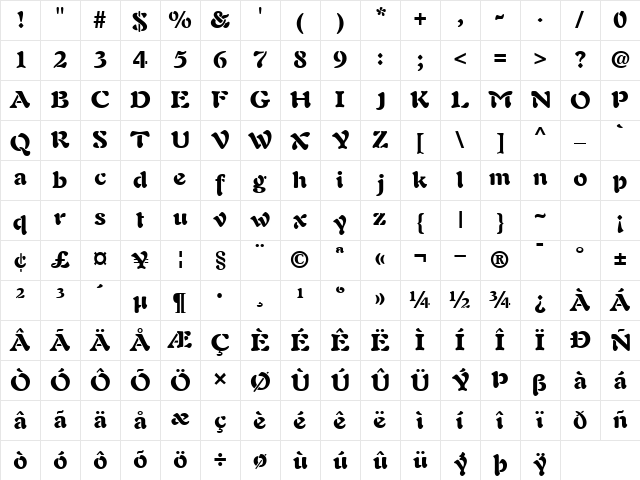
PaletteBlackSSK Normal
Design Context for PaletteBlackSSK
PaletteBlackSSK is a composed and adaptable typeface that performs quietly and consistently across a wide range of design contexts.
Pro Tip: Use PaletteBlackSSK in both headline and body roles to test its range before committing to a single application.